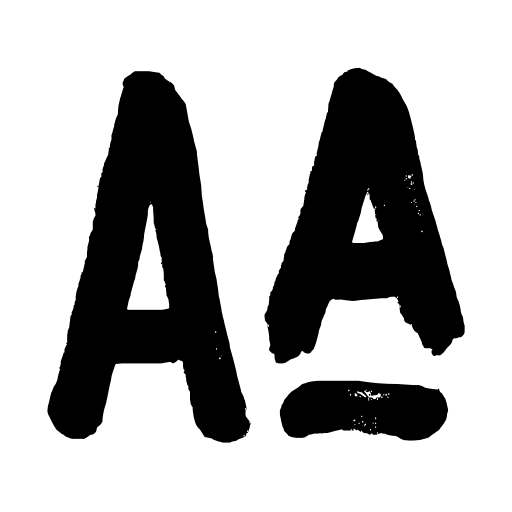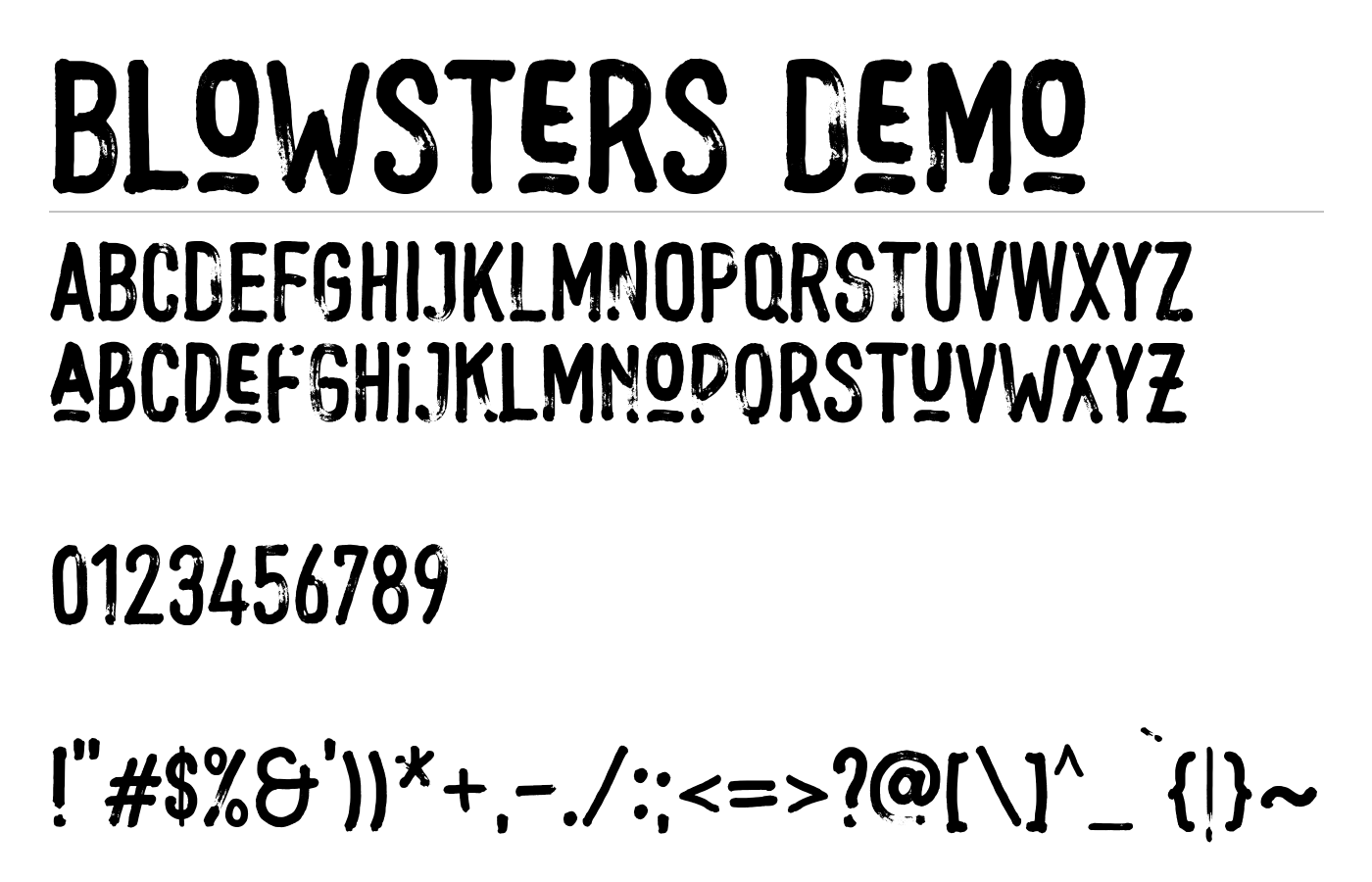
Blowsters Demo is a bold, condensed sans serif with a rough, hand-painted texture that gives it a gritty and dynamic character. Its uneven edges and distressed details create an energetic, casual feel perfect for designs that want to stand out with a raw, creative vibe. This font works well for posters, streetwear branding, and artistic projects where a bold, informal impact is desired.
Blowsters Demo Font
About Blowsters Demo Font
| Font family | Blowsters Demo Font |